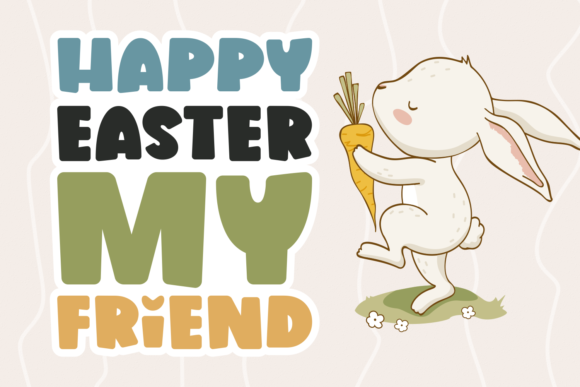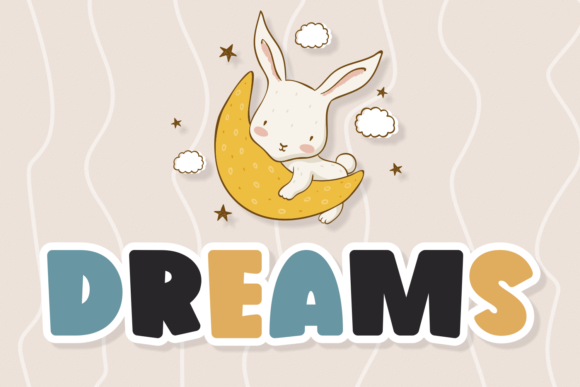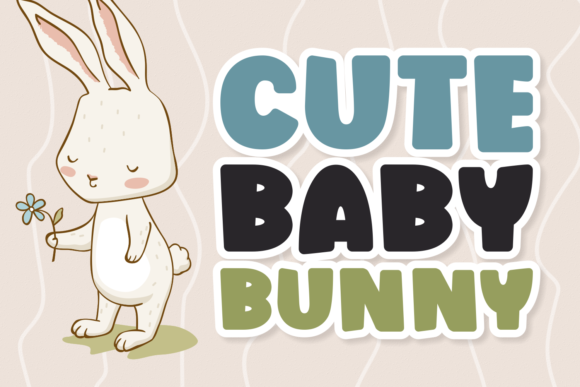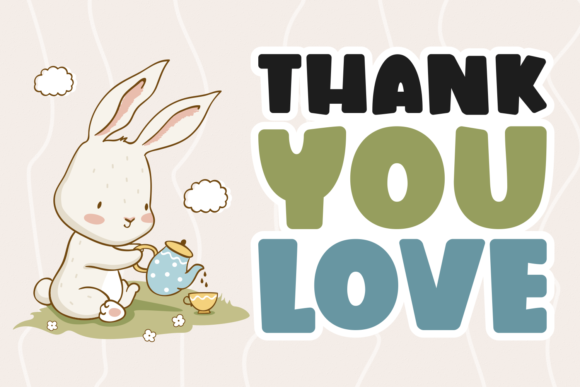
Dora Child Font: The Perfect Typeface for Creative Projects
Are you a designer, crafter, or DIY enthusiast looking for a unique and playful font to add a touch of whimsy to your projects? Look no further than the Dora Child Font! This fancy and chubby display font is perfect for creating kids’ clothes, room decorations, party events, posters, birthday cards, magazines, covers, and more.
What is Dora Child Font?
Dora Child Font is a creative typeface designed to bring a smile to your face. Its bold, rounded, and chubby letters make it an ideal choice for projects that require a playful and youthful touch. The font is perfect for designers and crafters who want to add a personal touch to their work and make it stand out from the crowd.
Features of Dora Child Font
- Fancy and Chubby Design: The Dora Child Font features bold, rounded letters with a chubby design that gives it a playful and endearing feel.
- Display Font: This font is specifically designed as a display font, making it perfect for headlines, titles, and other attention-grabbing elements.
- Kids’ Friendly: The font’s playful design makes it an excellent choice for projects targeting kids, such as children’s clothing, educational materials, and kids’ party decorations.
- Multipurpose: Dora Child Font can be used for a wide range of projects, including posters, birthday cards, magazines, covers, and more.
Uses of Dora Child Font
The versatility of Dora Child Font makes it an excellent addition to any designer’s or crafter’s toolkit. Here are some ideas for using this fantastic font:
- Kids’ Clothes: Add a playful touch to your kids’ clothing designs with Dora Child Font. Perfect for t-shirts, hoodies, and other apparel.
- Room Decorations: Create adorable wall art, decals, and other room decorations that kids will love.
- Party Events: Use Dora Child Font to create eye-catching party invitations, banners, and decorations that will make your events unforgettable.
- Posters and Flyers: Add a touch of whimsy to your posters and flyers with this playful font, perfect for promoting kids’ events, products, or services.
- Birthday Cards and Gifts: Create personalized birthday cards, gift tags, and wrapping paper with Dora Child Font.
- Magazines and Covers: Use this font to create attention-grabbing headlines and titles for kids’ magazines, comics, and other publications.
Tips for Using Dora Child Font
To get the most out of Dora Child Font, here are some tips to keep in mind:
- Pair with Other Fonts: Combine Dora Child Font with other fonts to create a unique and visually appealing design.
- Experiment with Colors: Play around with different colors to find the perfect match for your project.
- Keep it Simple: Don’t overcomplicate your design. The simplicity of Dora Child Font is part of its charm.